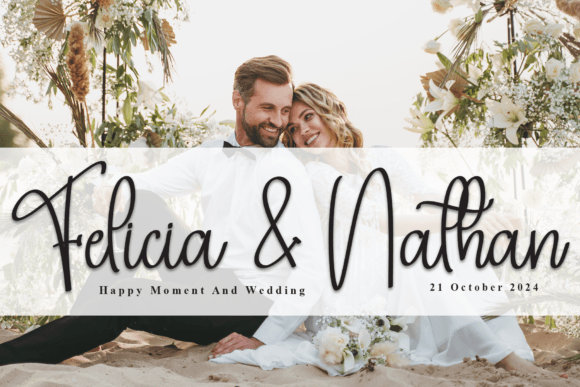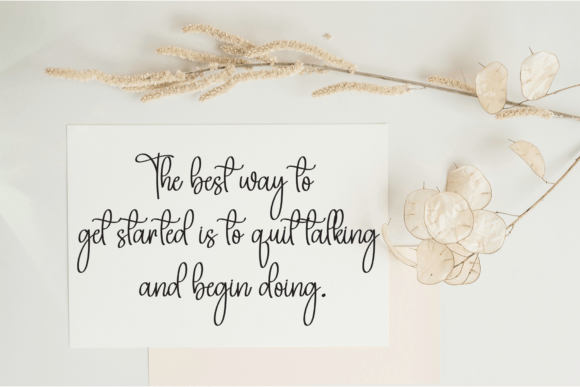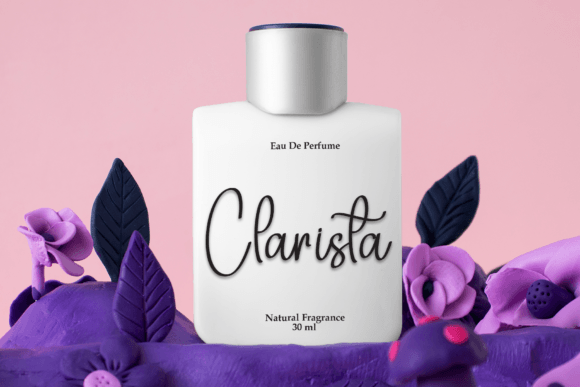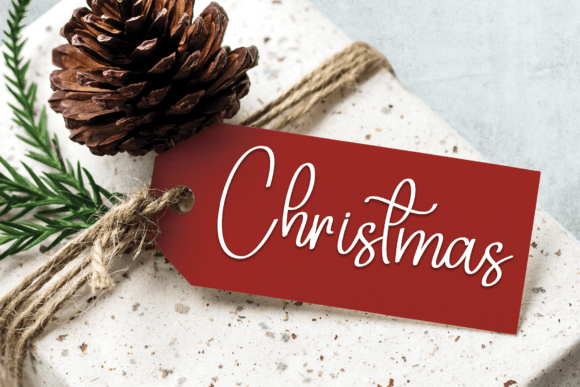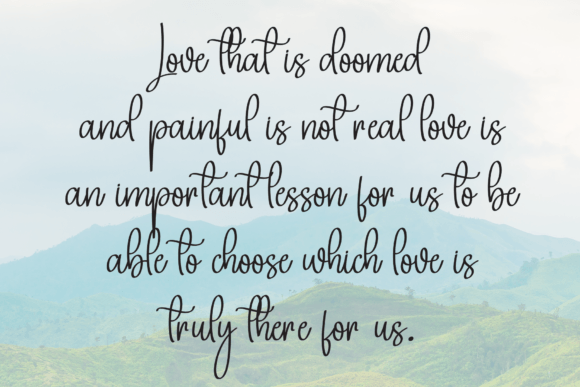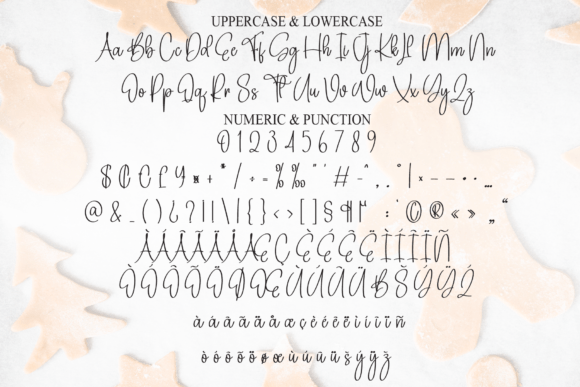
The Cozy Charm of Gingerbread Font: A Designer’s Delight
I’ll never forget the time I was working on a holiday-themed project for a client, and I just couldn’t seem to find the perfect font. I had a vision of a warm, inviting, and playful style that would capture the essence of the season, but everything I tried felt either too generic or too over-the-top. That’s when I stumbled upon the Gingerbread font, and it was love at first sight! ✨
This charming handwritten font has a way of making your text feel like a warm hug. Its soft curves and friendly appearance make it perfect for holiday themes, festive invitations, or any project that needs a cozy touch. In this article, I’ll share my experience with the Gingerbread font, including what I love about it, some practical tips on how to use it, and a few similar fonts you might enjoy.
An Honest Review of Gingerbread Font
- ✨ The playful, handwritten style that adds a personal touch to any project
- ✅ Easy-to-read letters that make it perfect for body text or headings
- 💕 The warm and inviting feel that’s perfect for holiday themes or cozy designs
- 🎉 The font’s versatility – it can be used for both digital and print projects
While the Gingerbread font is a delightful addition to any project, there are a few things to keep in mind. 🤔 For example, it can be a bit tricky to use in very small sizes, as some of the details may get lost. ⚠️ Additionally, the font’s playful nature may not be suitable for very formal or professional projects.
The Backstory of Gingerbread Font
The Gingerbread font was designed with the intention of capturing the warmth and coziness of the holiday season. Its creator, a talented type designer, was inspired by the traditional gingerbread houses and cookies that are a big part of holiday celebrations. The result is a font that’s perfect for adding a touch of festive cheer to any project.
Q: What type of projects is the Gingerbread font best suited for?
A: The Gingerbread font is perfect for holiday-themed projects, festive invitations, or any design that needs a cozy and inviting touch.
Q: Is the Gingerbread font easy to read?
A: Yes, the Gingerbread font is designed to be easy to read, making it perfect for body text or headings.